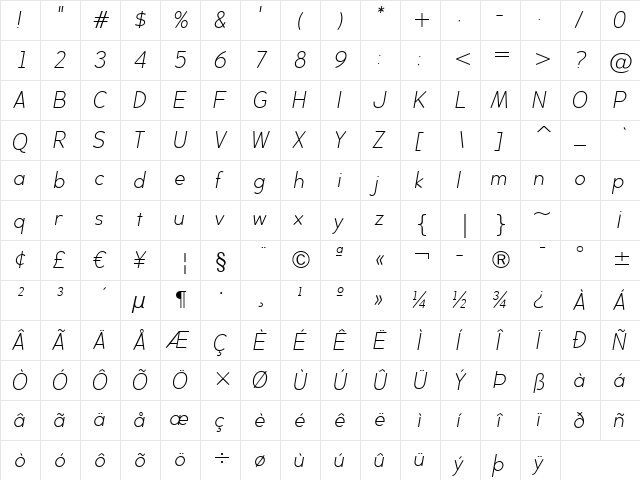
BacktalkSans BTN Lt Oblique Font Preview
Design Context for BacktalkSans BTN Lt Typeface
BacktalkSans BTN Lt is a composed and adaptable typeface that performs quietly and consistently across a wide range of design contexts. Its italic angle brings a sense of urgency and motion to the letterforms. Its slender proportions lend an understated elegance to any composition.
Pro Tip: Try BacktalkSans BTN Lt for annotation and caption copy alongside an upright companion — the contrast in angle creates a dynamic but ordered typographic system.